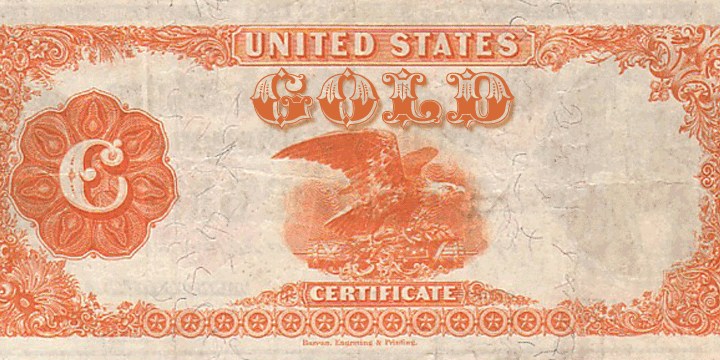
Gold Standard got its start from a few letters found on an old Gold Certificate from 1882.
From those few letters spelling out the word GOLD, the rest of the alphabet was designed to match.
The lowercase design was based on lettering found on an old silver certificate from approximately the same year.